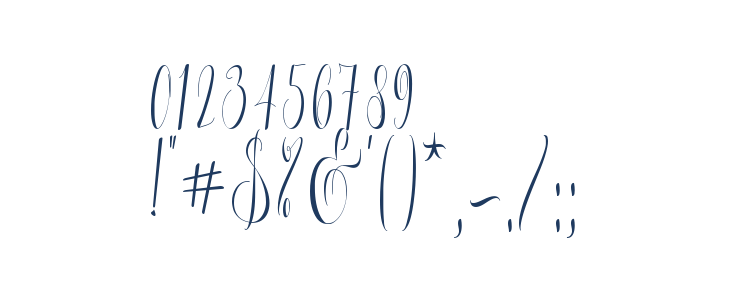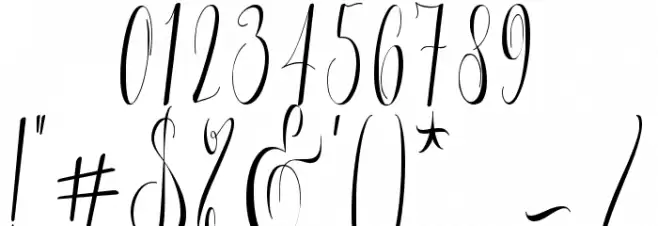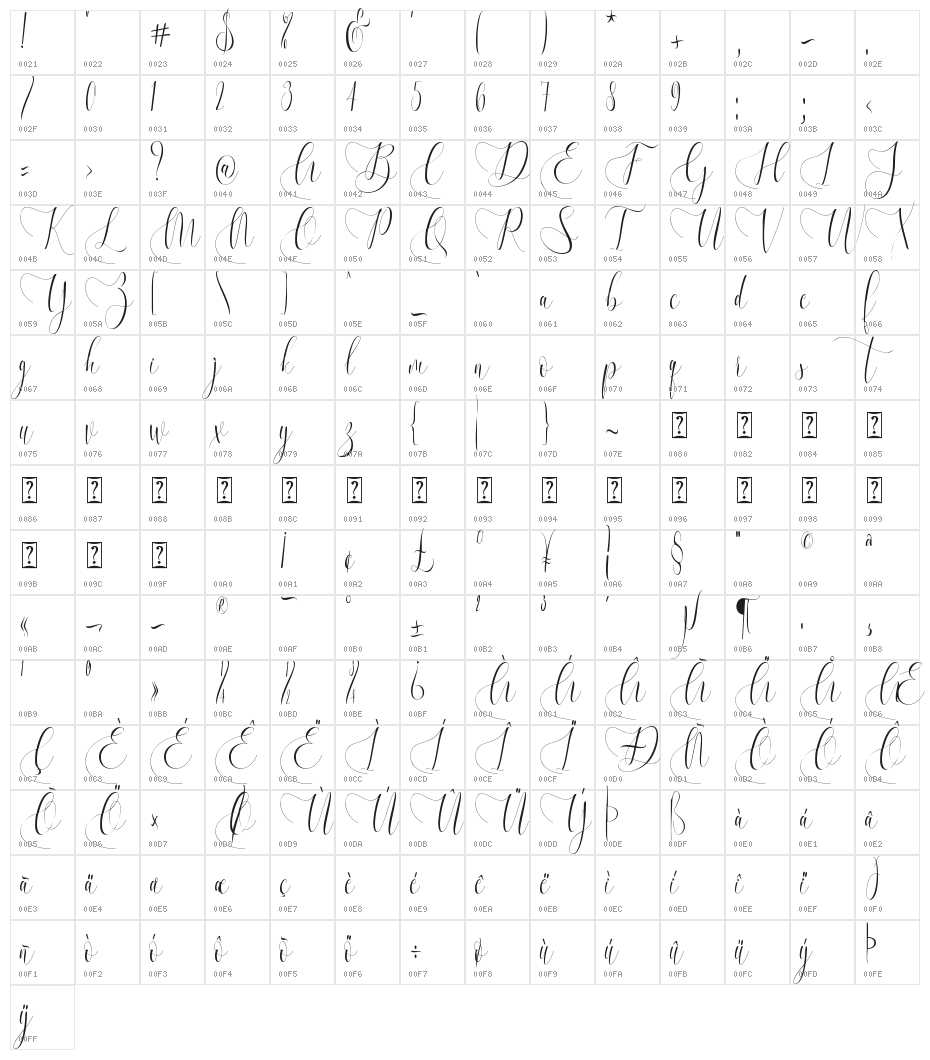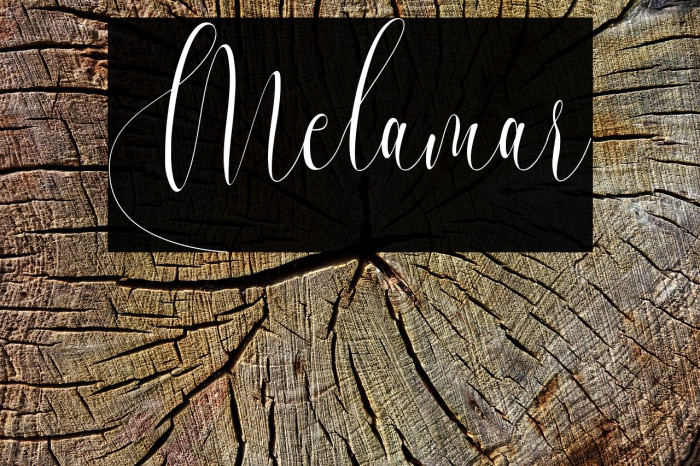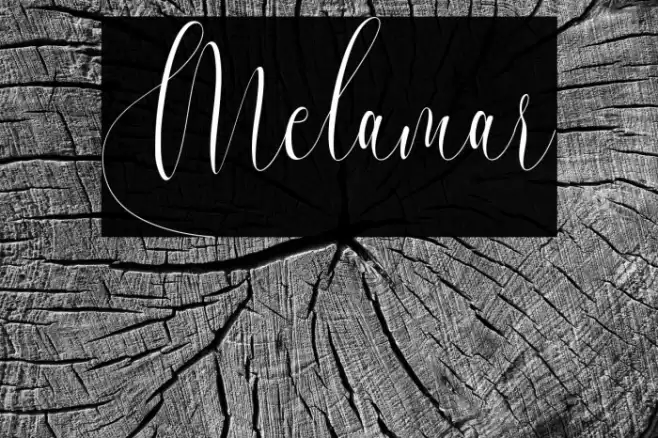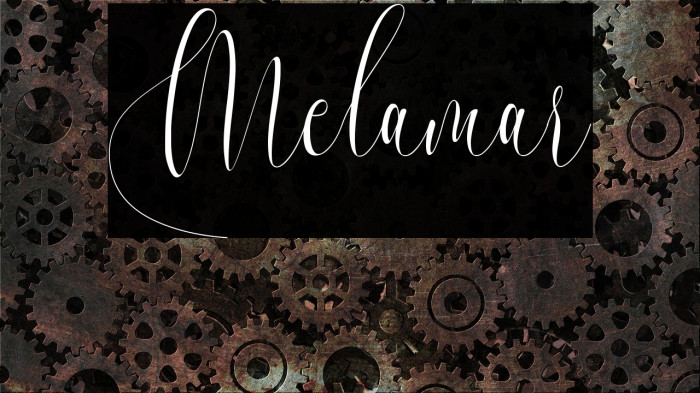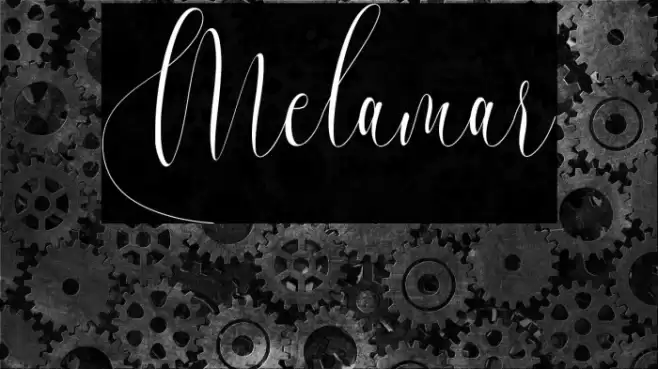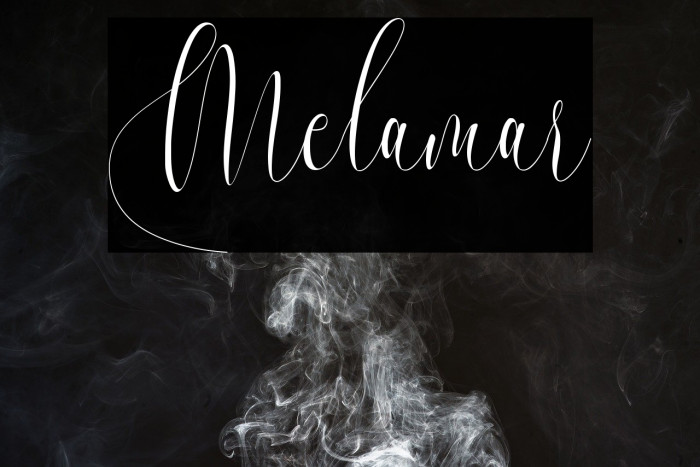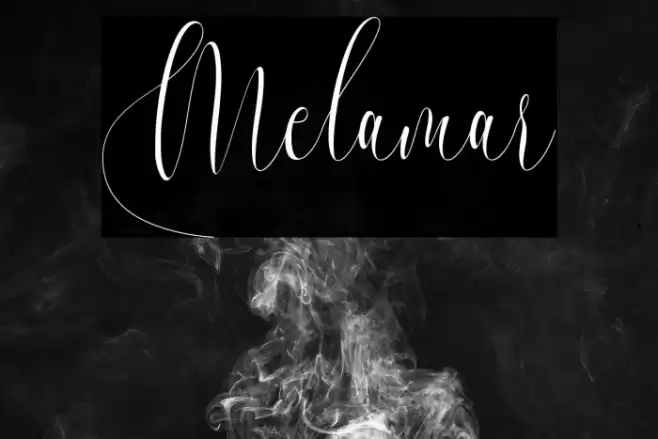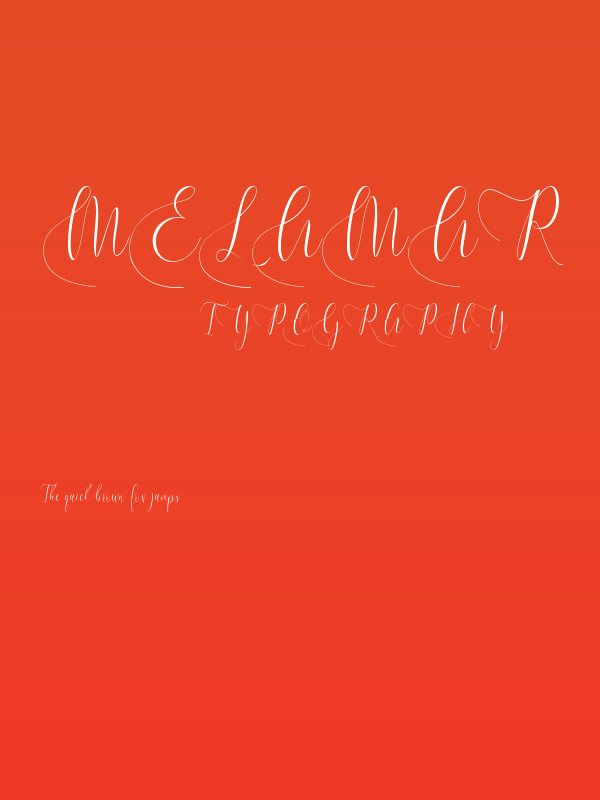
Melamar Font
Melamar Description
This elegant script font features flowing, interconnected letters that exude a sense of sophistication and grace. The uppercase letters are tall and slender, with delicate loops and flourishes that add a touch of whimsy. The lowercase letters maintain a consistent flow, with smooth curves and elongated strokes that create a harmonious rhythm. The numerals are stylish and blend seamlessly with the overall design, while the special characters are adorned with intricate details. This font's delicate and artistic nature makes it ideal for projects that require a personal and refined touch.